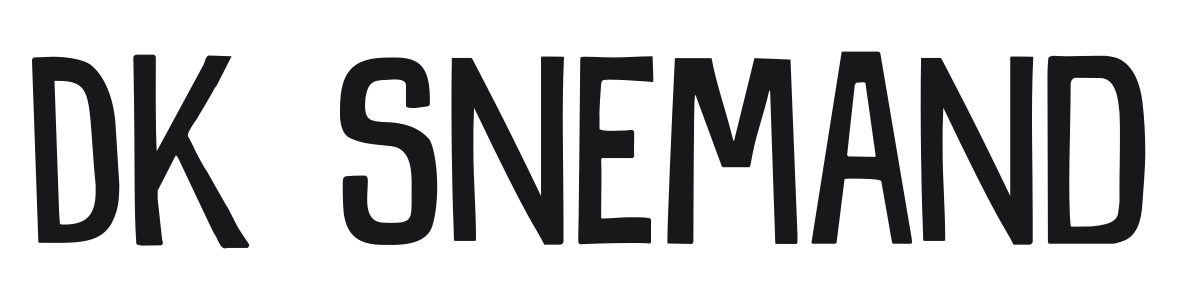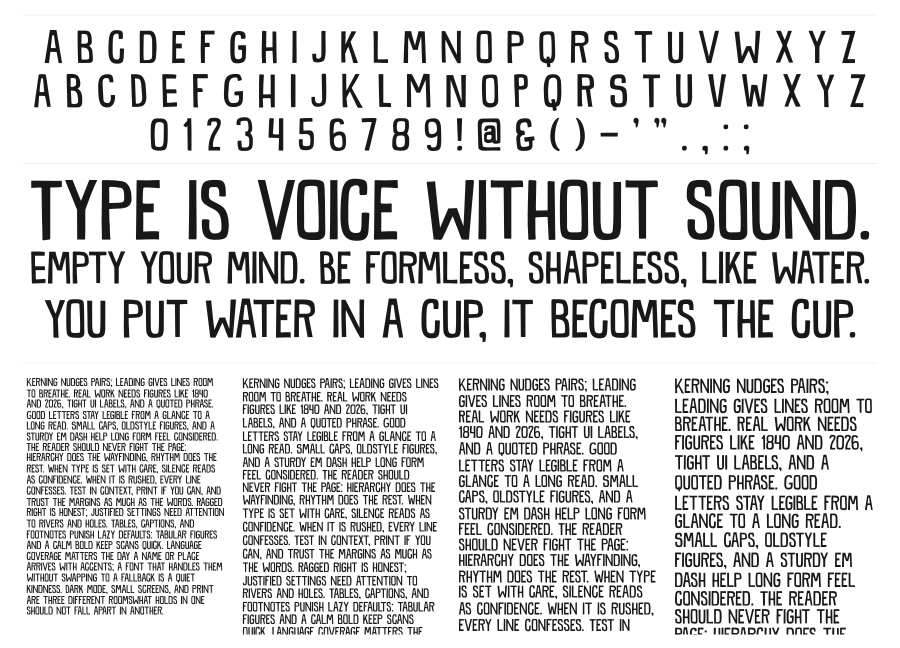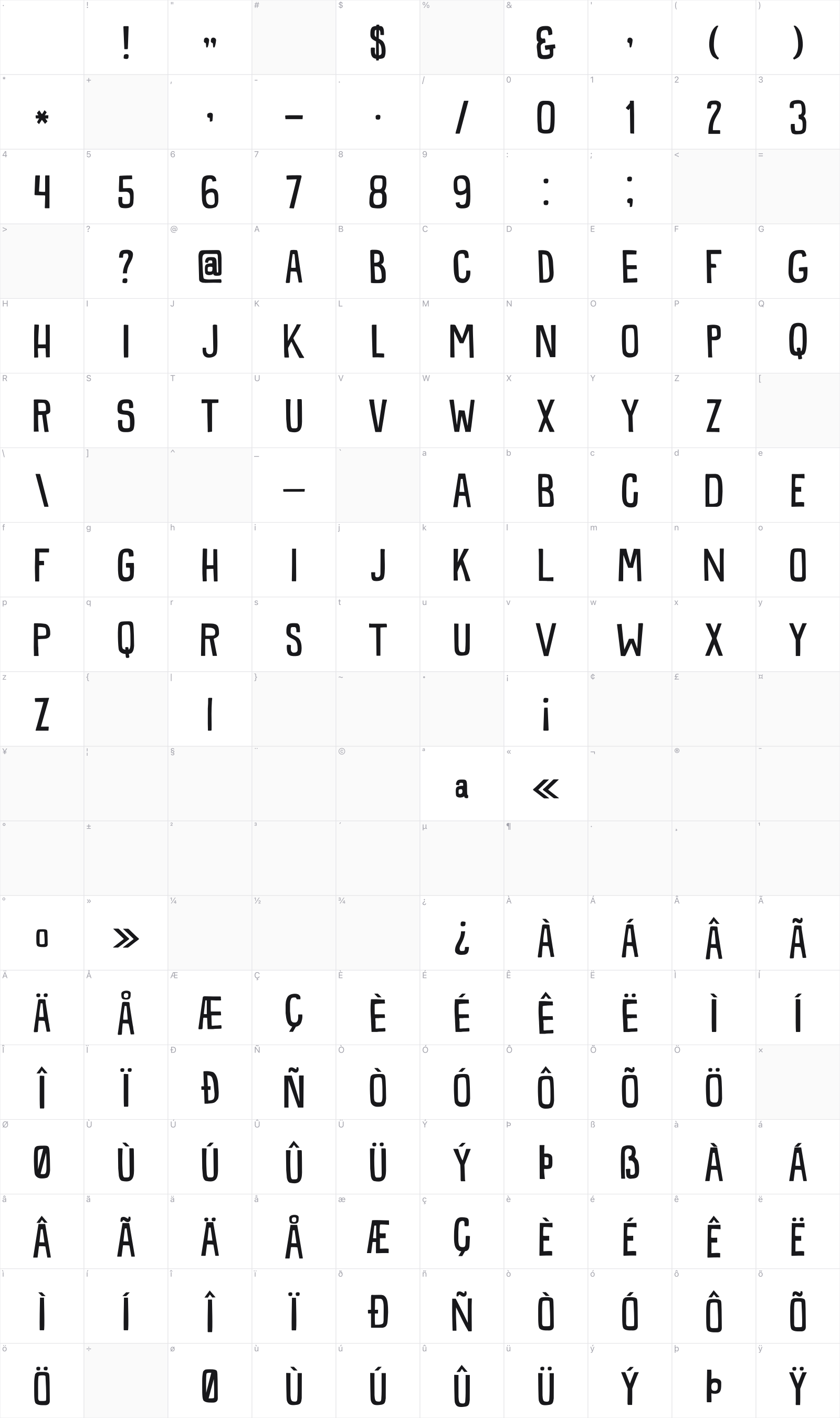
DK Snemand
DK Snemand is a tightly condensed bold sans-serif with a rugged, mid-century Scandinavian character. Its flat terminals and near-monoweight strokes recall vintage signage and sports typography from the 1960s and 70s. Compact and assertive, it commands attention at large sizes.